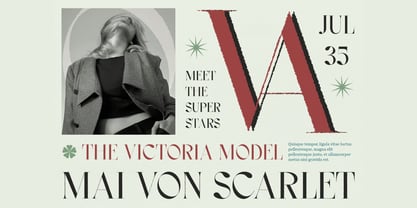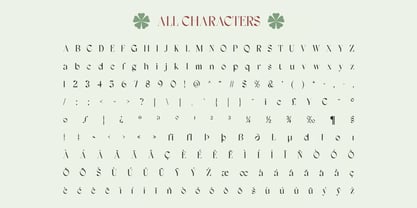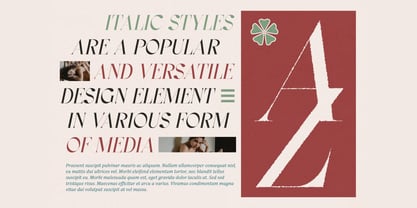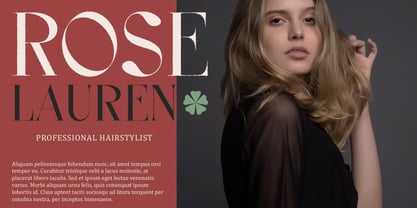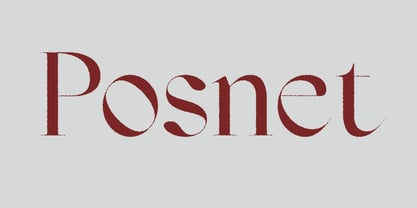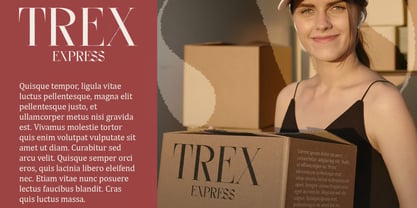
Posnet
by Hasnat Studio
The Posnet Font Family was designed by Hasnat Khan and published by Hasnat Studio. Posnet contains 2 styles and family package options. More about this family
Posnet is a modern serif display font that combines refined elegance with a distinctive rough and textured aesthetic. Designed for creatives who want typography with personality, Posnet brings together classic serif structure and an organic, handcrafted edge to create a unique visual style that instantly captures attention.
Its subtle roughness gives each letter a tactile, authentic appearance, adding warmth, depth, and character without compromising the sophisticated nature of the serif design. This balance between elegance and raw texture makes Posnet an excellent choice for designers looking to create modern, artistic, and memorable typography.
Perfectly suited for headlines, titles, logos, posters, branding, packaging, editorial layouts, advertising, and creative campaigns, Posnet delivers strong visual impact wherever it is used. Its expressive character works beautifully in both digital and print applications, making it a versatile display typeface for contemporary design projects.
✿ Key Features:
• Modern Serif Display Design: Combines sophisticated serif forms with a contemporary aesthetic.
• Rough & Textured Appearance: Subtle imperfections create an authentic handcrafted character.
• Elegant Yet Raw Style: Balances refined typography with an organic and artistic edge.
• Strong Display Presence: Designed to make headlines, titles, and prominent text stand out.
• Creative & Expressive Letterforms: Adds personality and visual depth to every composition.
• Versatile Typography: Suitable for both digital and print design projects.
• Unique Visual Character: A distinctive alternative to traditional clean serif fonts.
• Modern Organic Aesthetic: Perfect for brands and projects seeking an artistic, authentic feel.
✿ Perfect For:
• Logo & Branding Design: Create distinctive identities with a refined yet handcrafted personality.
• Posters & Headlines: Make promotional titles and campaign messages instantly noticeable.
• Editorial Design: Ideal for magazine covers, feature titles, and creative publications.
• Packaging Design: Adds an artisanal and premium feel to product labels and packaging.
• Fashion & Lifestyle Branding: Perfect for contemporary brands seeking an expressive visual identity.
• Advertising & Campaigns: Bring originality and character to creative marketing materials.
• Social Media Graphics: Create bold, artistic posts and promotional visuals.
• Creative Projects: Excellent for posters, album artwork, merchandise, and other expressive designs.
Add character and originality to your typography with Posnet—a modern rough serif display font that blends elegant letterforms with a raw, handcrafted texture. Perfect for logos, branding, posters, headlines, packaging, editorial design, advertising, fashion projects, and creative visual identities that demand a modern yet authentic look.
Designers: Hasnat Khan
Foundry: Hasnat Studio